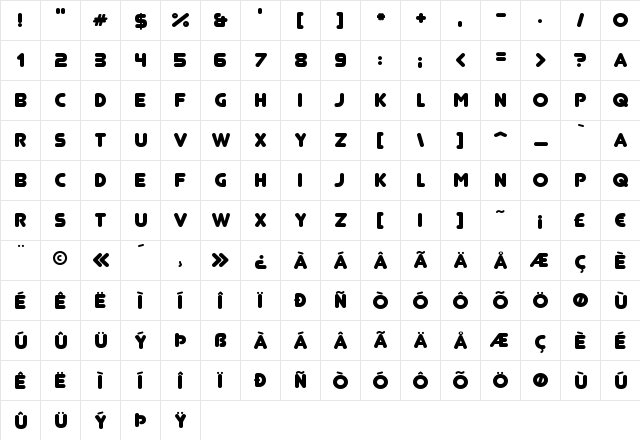
Junegull Regular
Design Context for Junegull Typeface
Junegull offers clean, dependable letterforms without strong stylistic allegiance, making it a practical choice for designers who need flexibility.